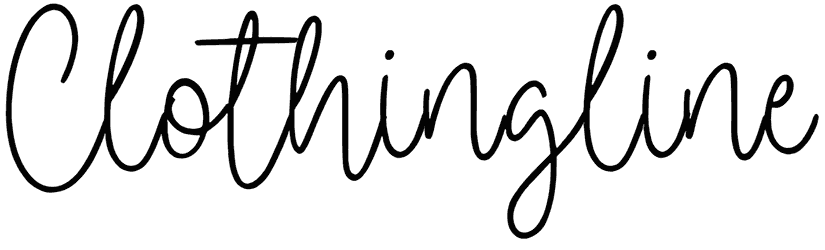
Clothingline Font
If you want your promotional materials to seem modern to the people who will be reading them, the Clothingline font is a great option. This stylish script and handwritten font work well for a variety of projects, such as headings, flyers, and even product packaging.